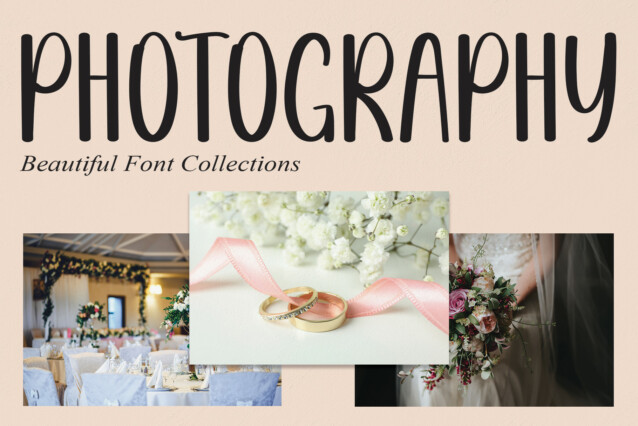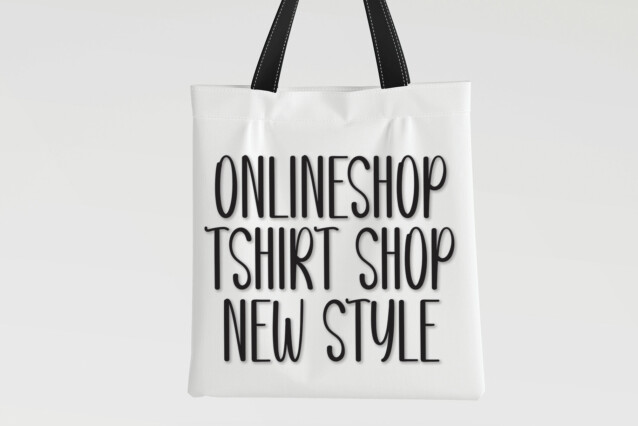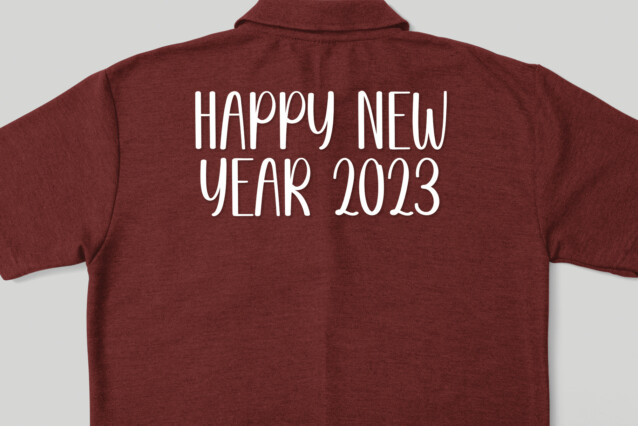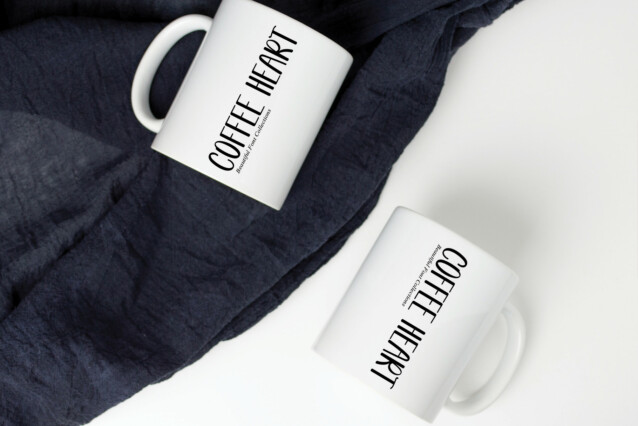
Designer Creative Display Font
Designer Creative Display Font -The latest style letters are perfect for wall displays, wedding invitations, social media post logos, advertisements, product packaging, product designs, labels, photography, watermarks, invitations, stationery, and any project that requires a taste for handwriting.